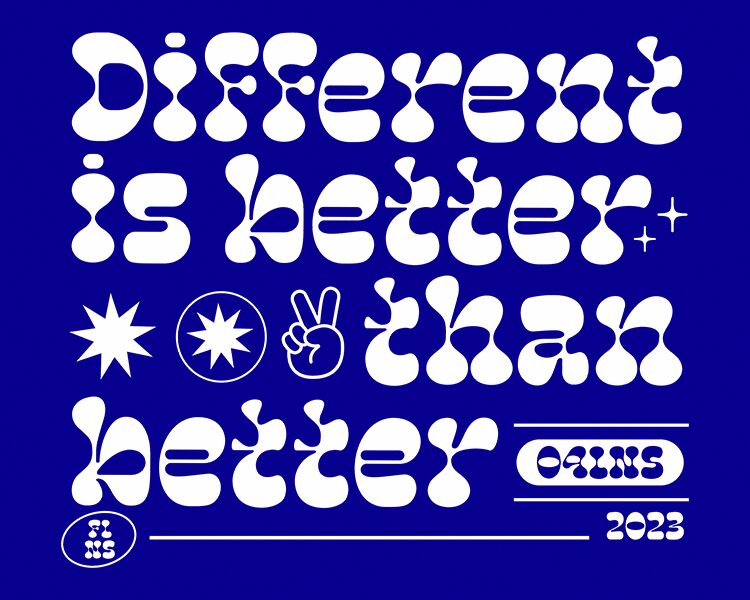
Stone Echos
Stone Echos font by Four Lines is a free bold groovy display font. It stands out with pillowy, pebble-like forms split by a smooth horizontal “echo” that reads like light glinting across wet stone. The letters feel chunky yet buoyant, with rounded edges and an easy, bouncing rhythm that pulls the eye along. High contrast and generous counters keep it lively instead of heavy.
Using Stone Echos, headlines pop with retro warmth and a touch of psychedelia-great for posters, album art, festival branding, coffee packaging, stickers, and social promos. This free font loves big sizes and a little extra tracking; pair it with a lean geometric sans to keep the message crisp.